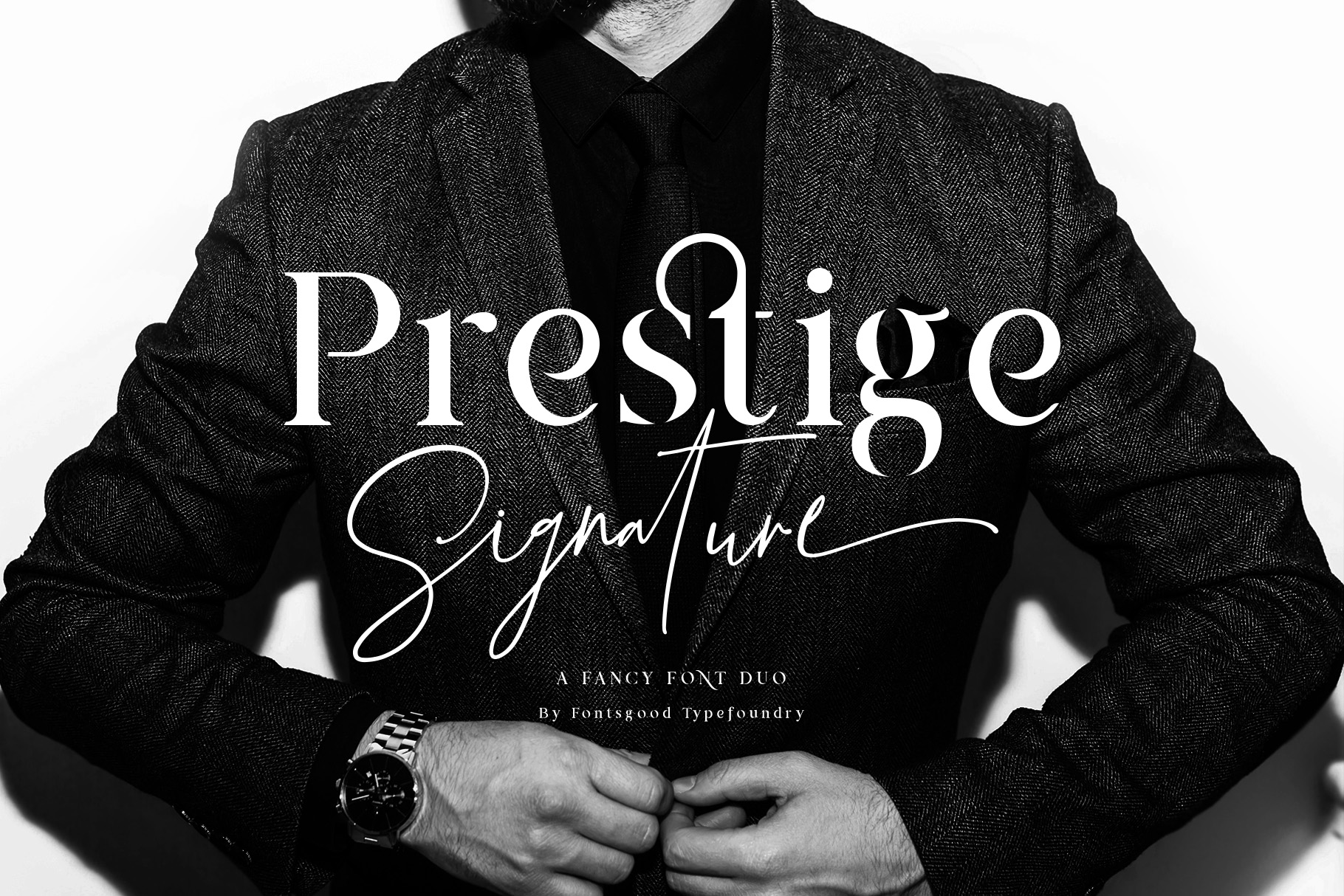
Prestige Signature Serif
Prestige Signature Serif Font
Prestige Signature Serif, A classy renaissance serif font with 15 century vibe, containing upper and lowercase, numerals , large range of punctuation, ligature, multilingual language and alternate uppercase.